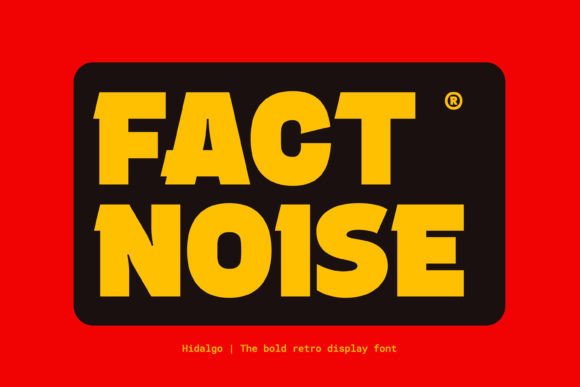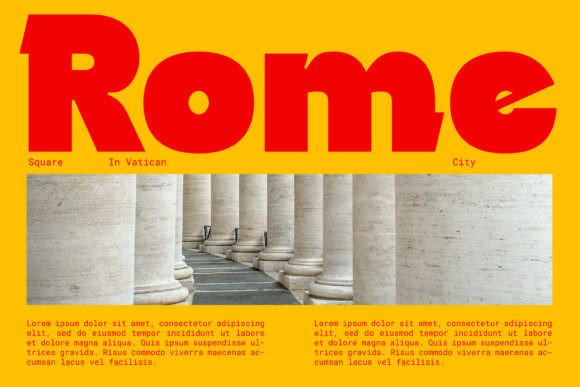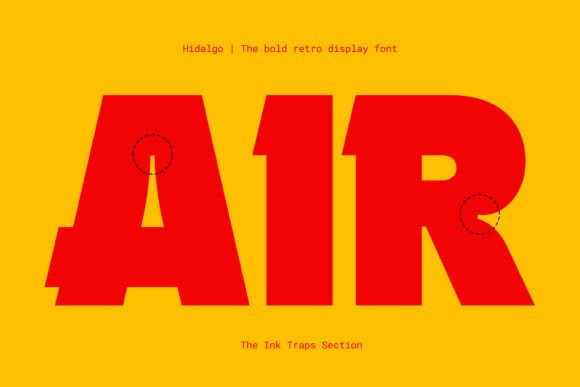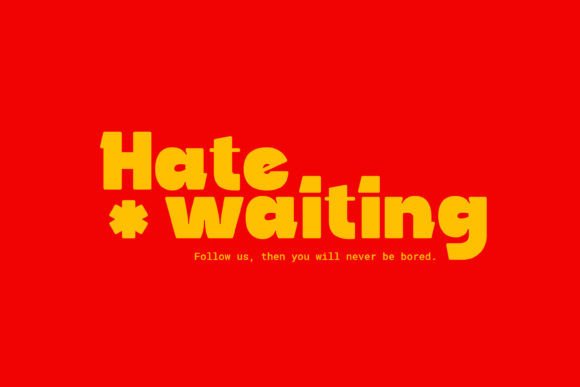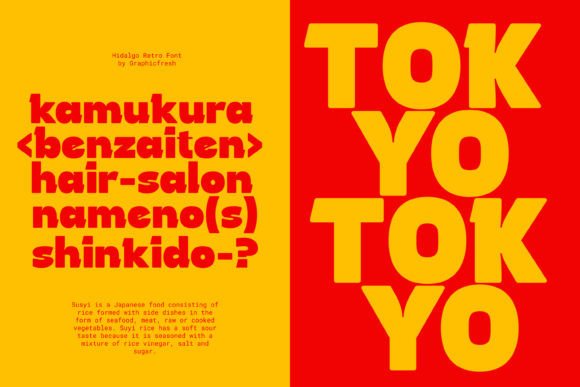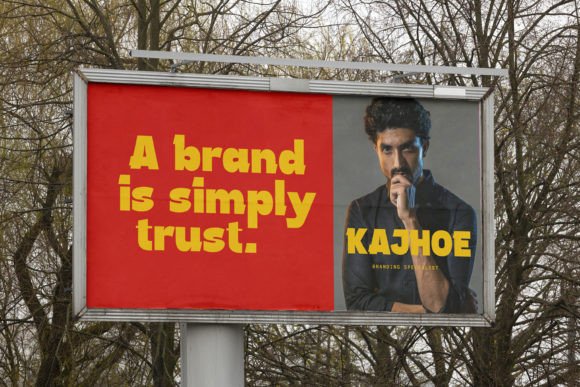
Introducing Hidalgo Font: The Retro Display Font You Need
Have you ever been in the middle of a design project, and suddenly, you’re stuck on finding the perfect font? I remember working on a vintage-themed poster for a client, and no matter how many fonts I tried, none seemed to capture the essence of the 70s, 80s, and 90s. That’s when I discovered Hidalgo Font, a bold and versatile font collection that instantly elevated my design game.
A Personal Review: What I Love and What I Think Needs Improvement
• Retro vibe: Hidalgo Font perfectly captures the iconic styles of the 70s, 80s, and 90s, making it ideal for creating retro, classic, and vintage designs.
• Versatility: This font is perfect for various design projects, from posters and magazine layouts to logos and branding.
• Modern elegance: Hidalgo Font adds a touch of sophistication to any design, making it suitable for both personal and professional projects.
• ⚠️ Limited use in body text: Due to its bold nature, Hidalgo Font might not be the best choice for lengthy body text. It’s better suited for headings and titles.
• ⚠️ Glyph limitations: While Hidalgo Font has a wide range of glyphs, some users might find it lacking in certain characters or symbols.
Hidalgo Font was inspired by the iconic designs of the 70s, 80s, and 90s. The font’s creator, a passionate designer, wanted to capture the essence of retro style and make it accessible to modern designers. With Hidalgo Font, you can add a touch of nostalgia to your designs and create stunning works of art.